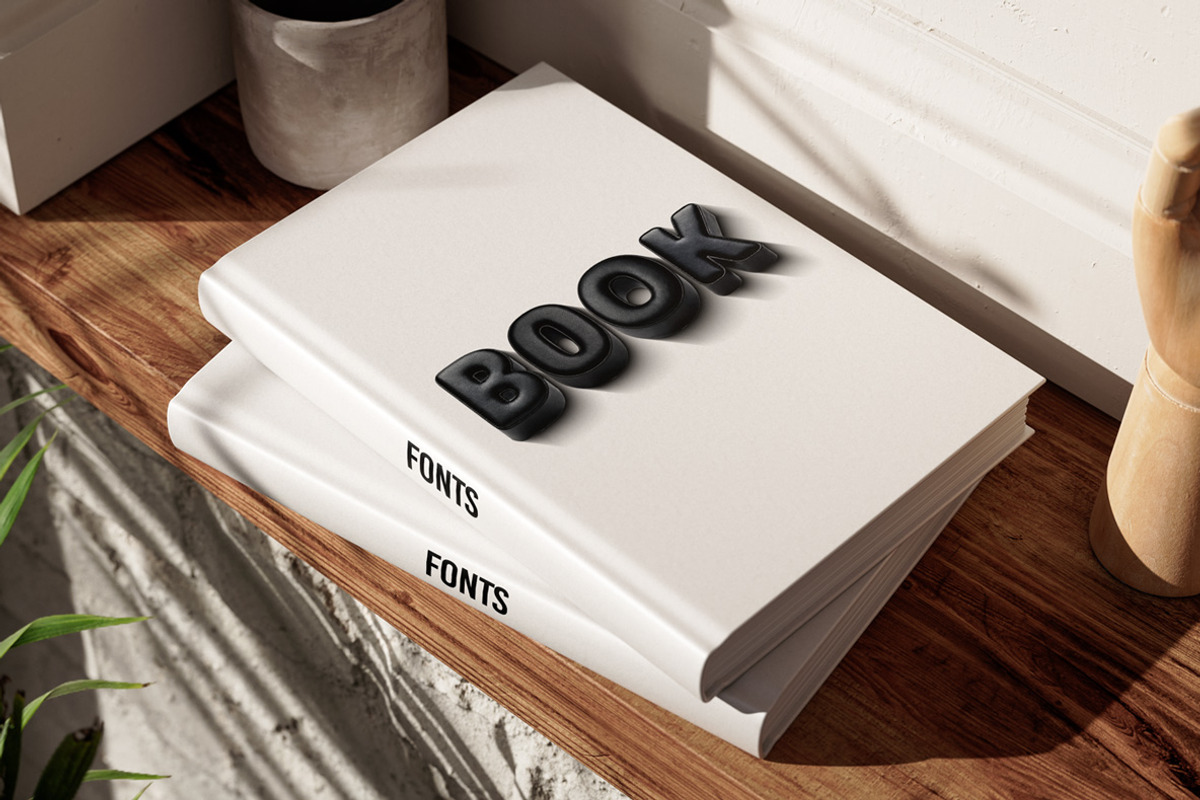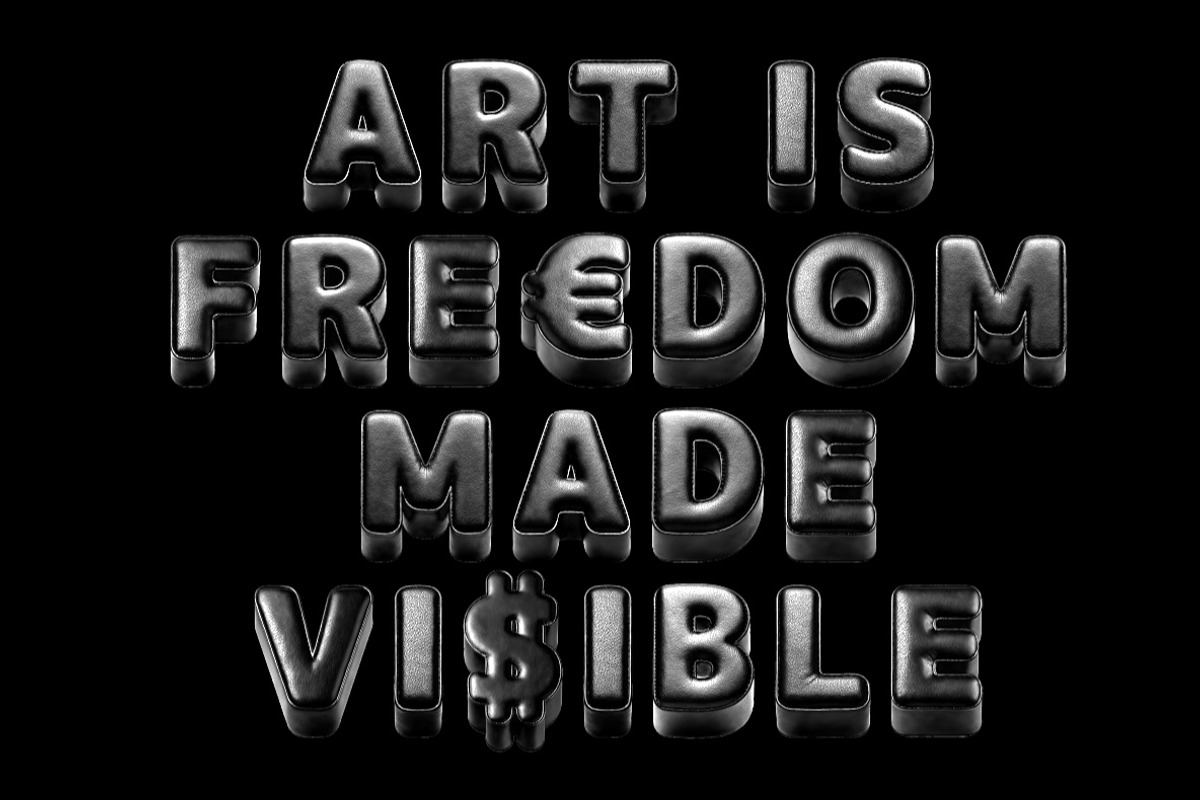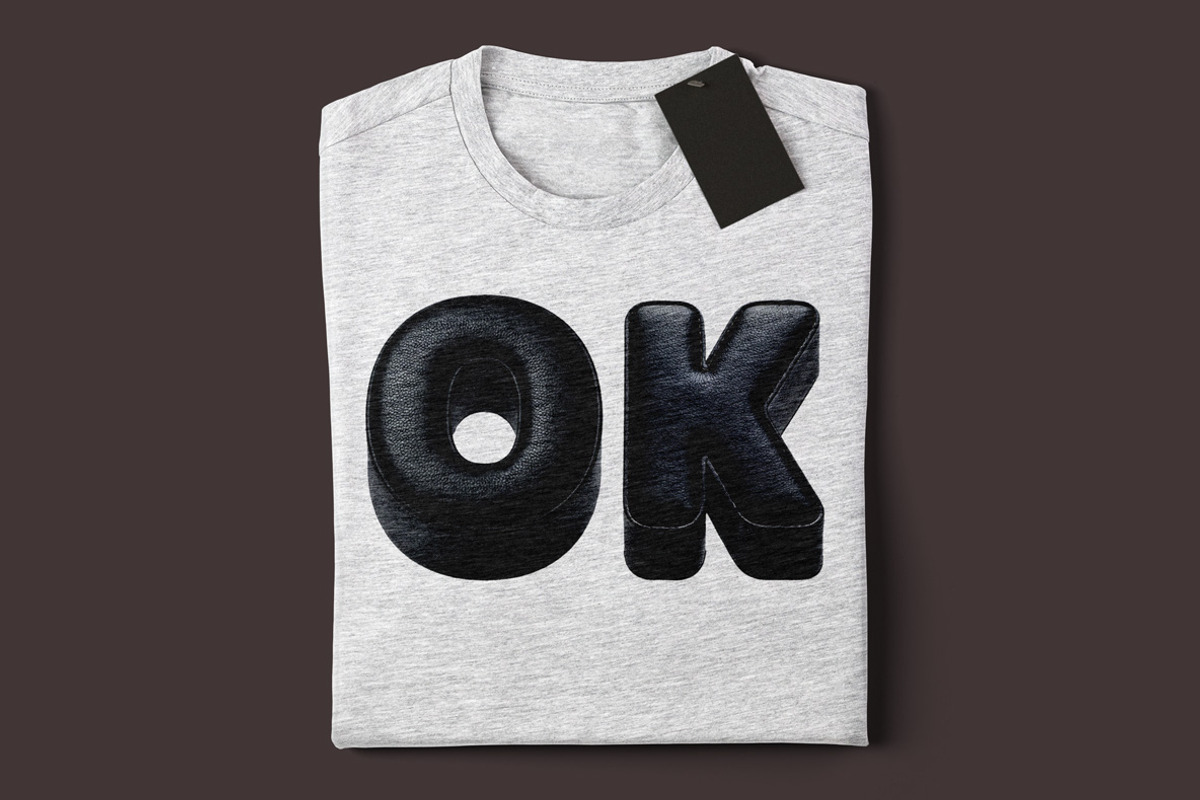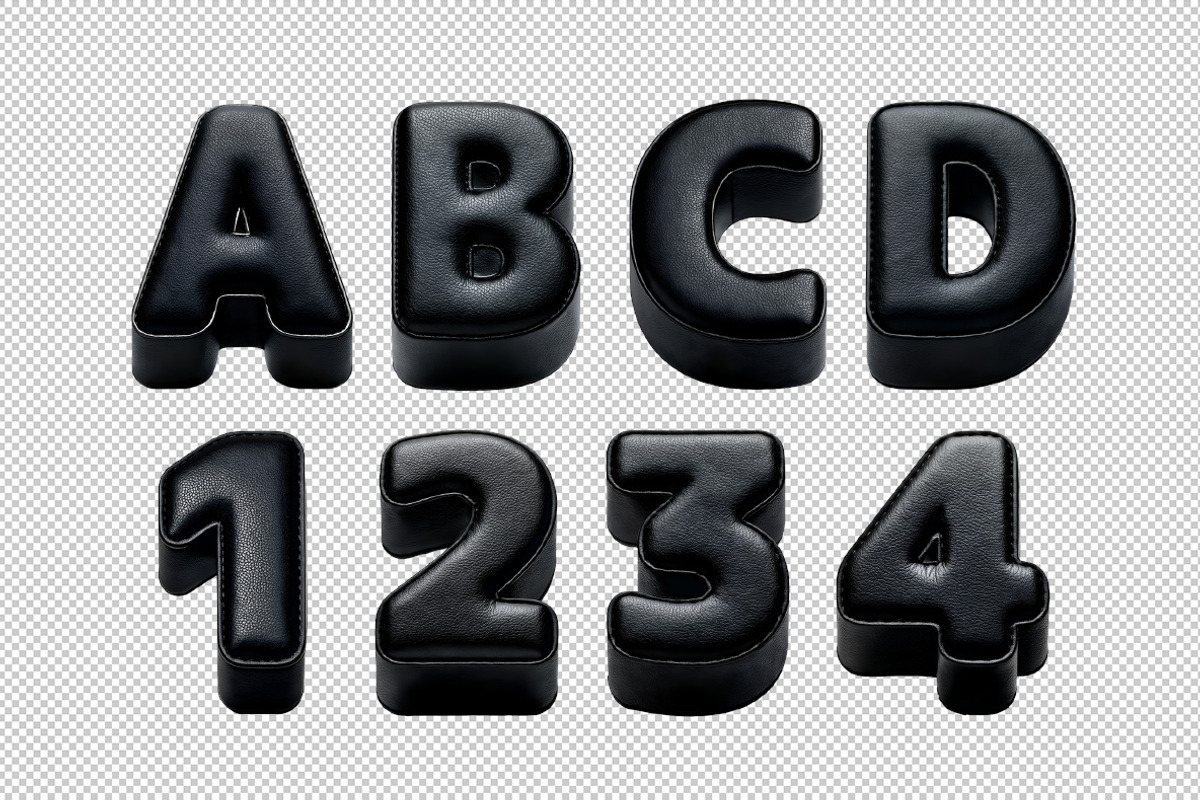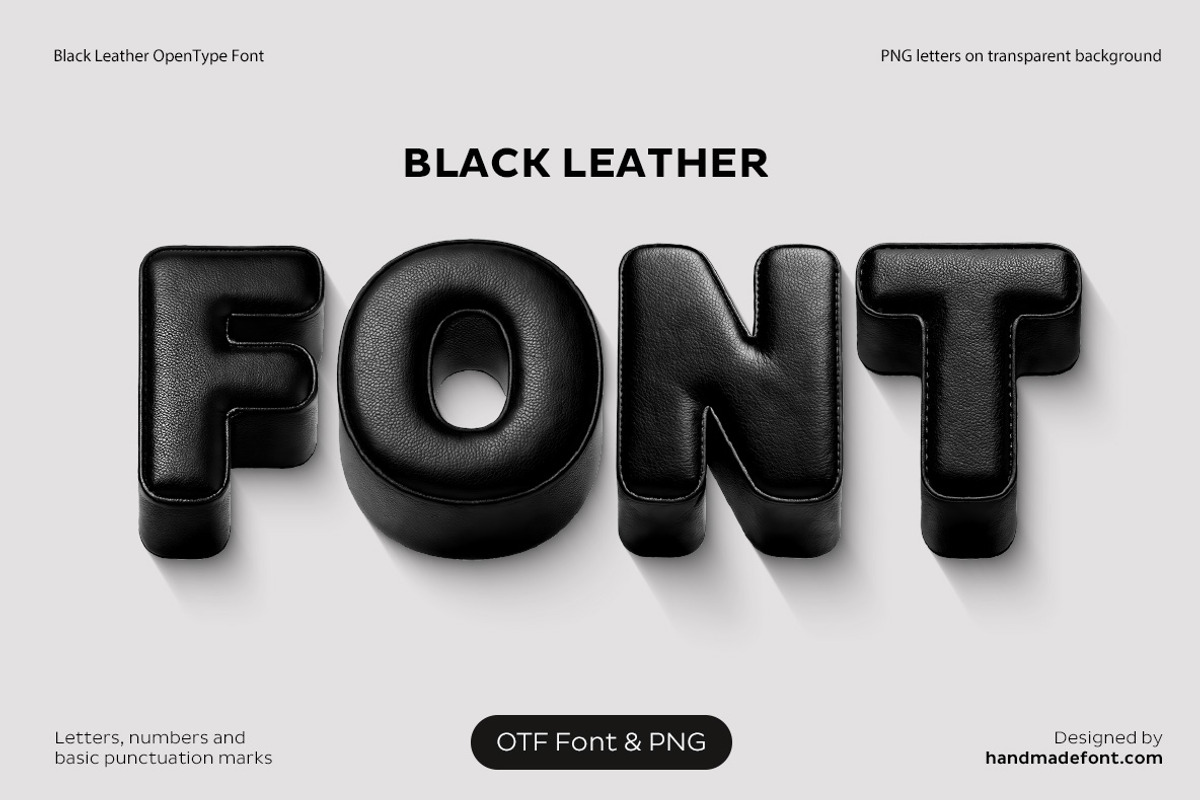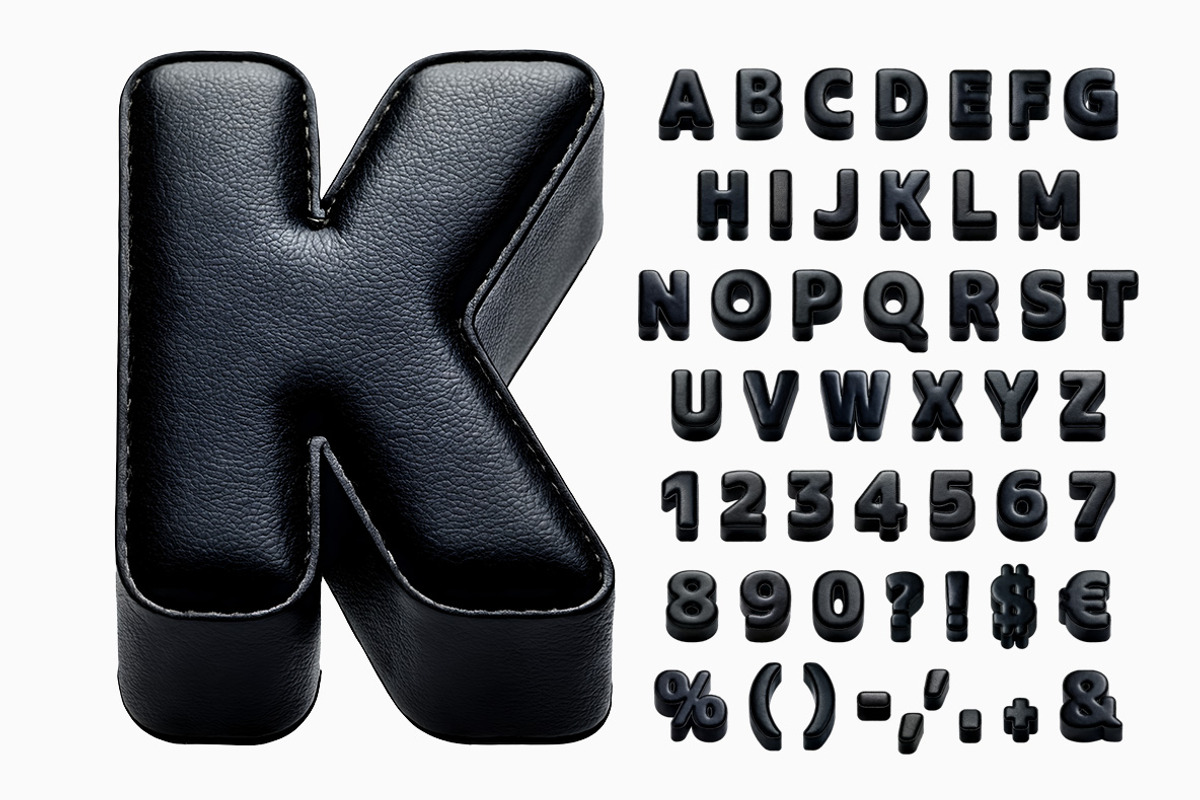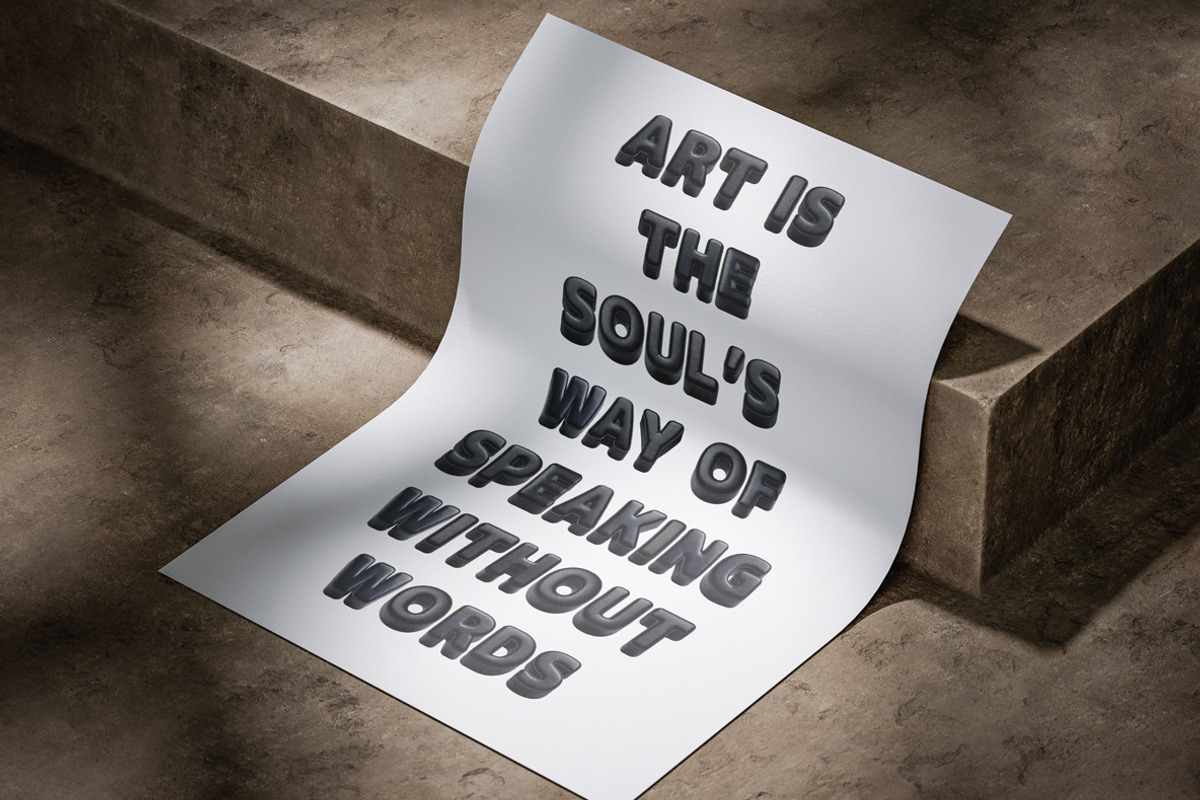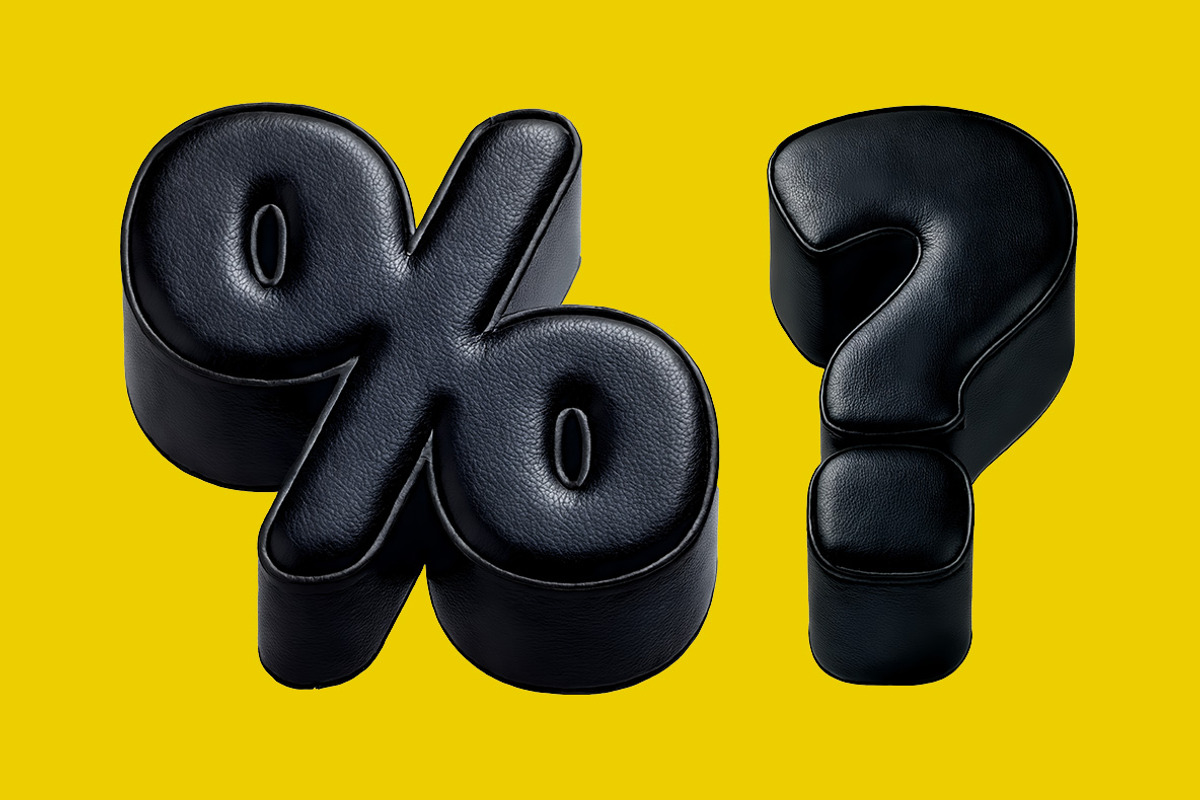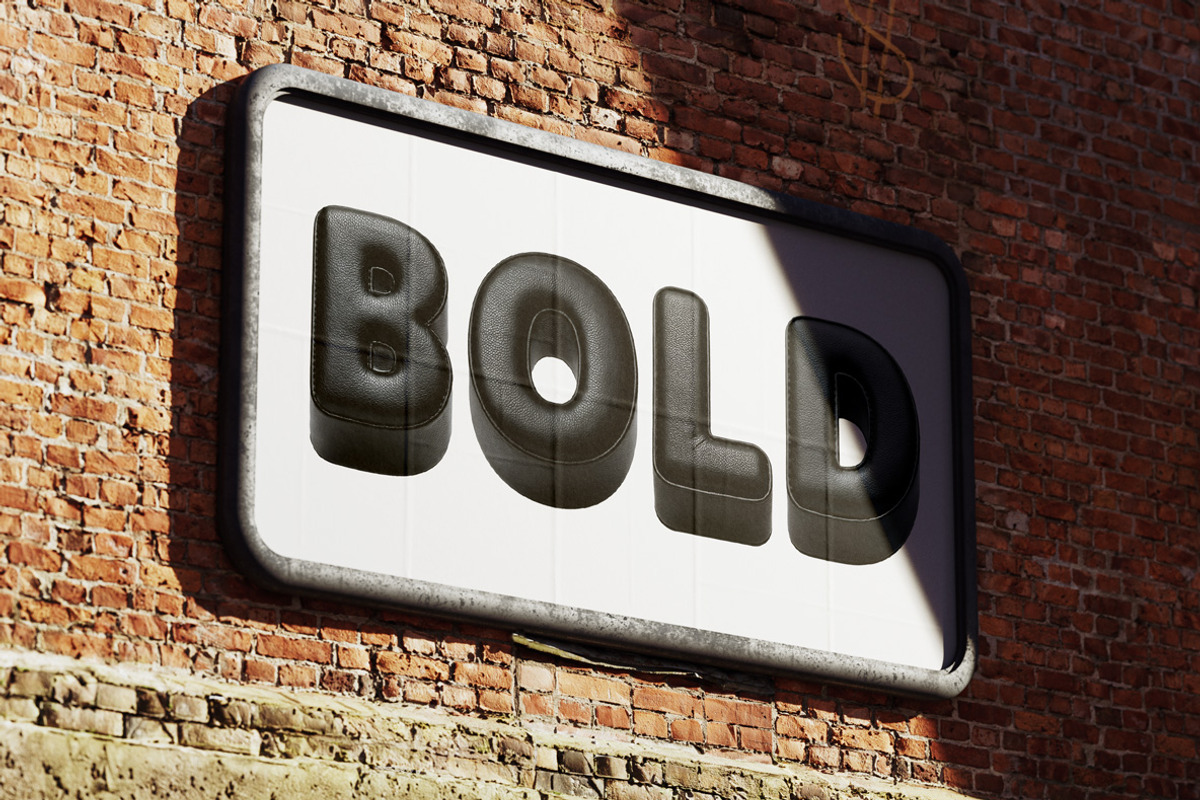
Black Leather Font
All in bold sophistication, the Black Leather Font brings a striking touch of elegance and edge to your designs. Crafted with impeccable detail, each letter is designed to resemble rich, textured black leather, offering a unique fusion of luxury and style. This leather font embodies the essence of modern typography, blending a sleek aesthetic with the timeless appeal of leather. Perfect for projects that demand a bold and refined statement, this alphabet elevates posters, branding, invitations, social media, and editorial layouts with ease. Whether you're highlighting headlines or crafting logos, the Black Leather Font delivers a tactile, high-impact look that’s as versatile as it is captivating. Make every word a statement with this unforgettable leather typography.
- Letters : A B C D E F G H I J K L M N O P Q R S T U V W X Y Z
- Numbers : 0 1 2 3 4 5 6 7 8 9 - Others : ! ? - . ' $ € % & #